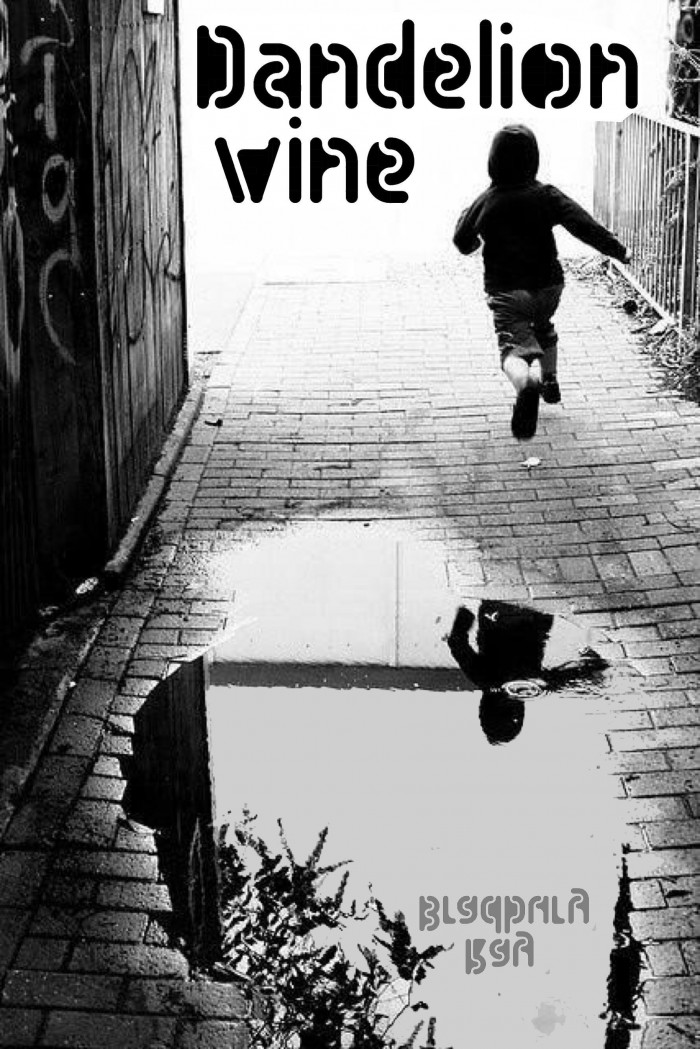
zykowarfare eYe/FS
Very stressful assembly of bricks, I thought I would not finish it on time. Uff! Some glyphs are still expecting to be included in the font. WIP, and kerning.
How did you make the samples without downloading the font?
This font is beautiful. It moves me and fills my heart with joy. I love it.
Beautiful and very useful!
a strong contender! it fits the competition theme excellently
Your Capital M seems to have a sharp bend... *touches bottom of M* Ouch!
Awesome font.  Very original idea, love it!
A new take on stencil fonts with eye-catching glyphs.
@Se7enty-Se7en: To make samples, sometimes I use screen captures.
Possibly my favorite entry of them all. For me, the stencil breaks give it a bit of a military-like demeanor, while still being playful, like the rounded pieces of a child's jigsaw puzzle. The unconventional areas of contrast and filled counters help to give it that extra bit of flavor that marks it as one of your designs. Hope to see this in the winners tomorrow :-)
Congratulations elmoyenique, it is beautiful how these unusual shapes slot together to form glyphs.
Congrats, this was one of my favorite entries!
This reminded me of the plastic stencils I used to get as a kid. Instant nostalgia and instant favorite. I'm so glad it won.